SGAMBCTW (AKA COMIC SANS TYPOGRAPHIES)
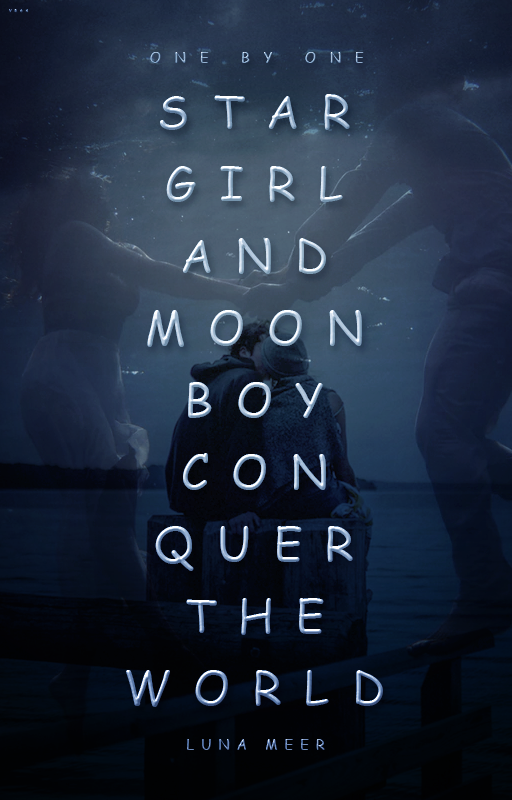
For a comp where we had to do comic sans typography
*vomits at font*
I actually did two comic sans typography things in one week
That's gotta be some kinda record
In case anyone was wondering here's the other one
I made this guy cuz my graphic design class sucks and we were supposed to spell out [School initials] Graphic Design 2017-2018 DURING OCTOBER and someone still didn't do the D. (And the A) Ergo, my teacher put up the blandest comic sans letters instead and hung them up. So I was just like "I WILL NOT STAND FOR THIS" and made the prettiest comic sans D I could.
Legit
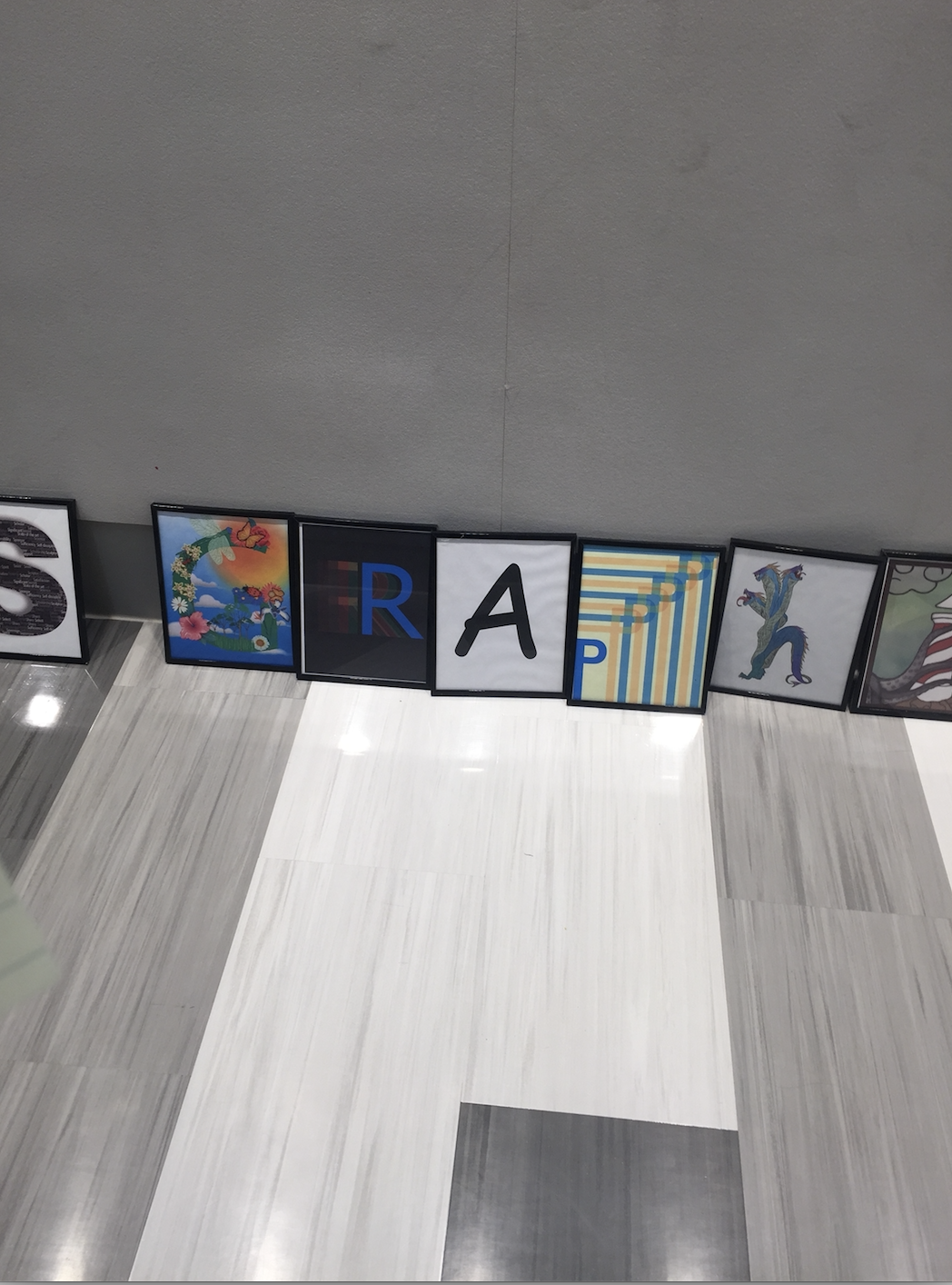
We suck